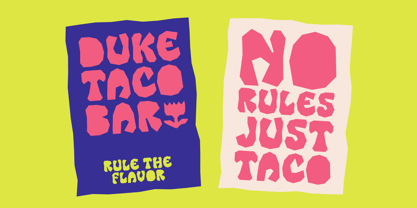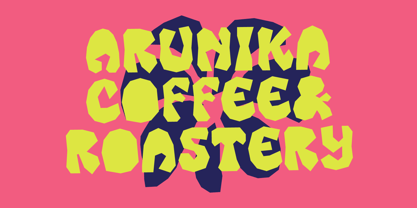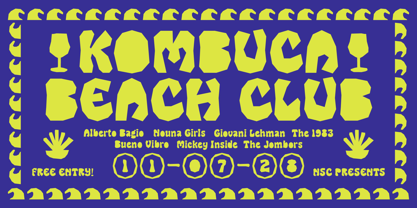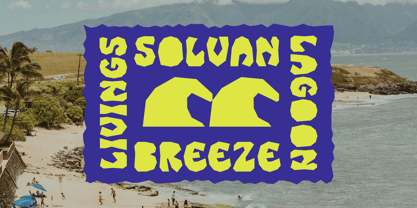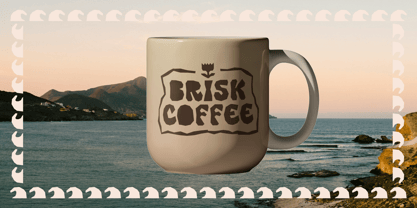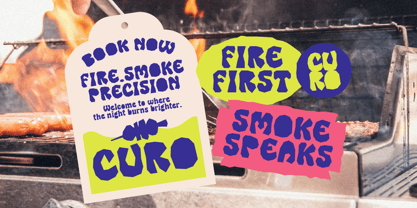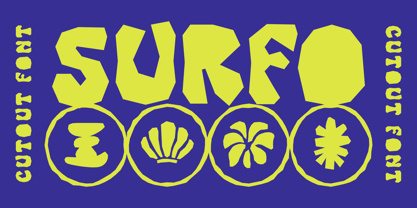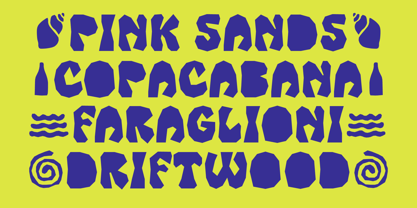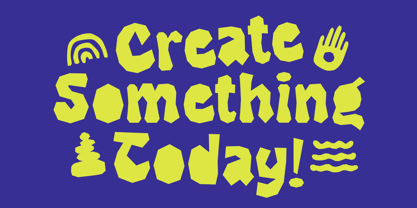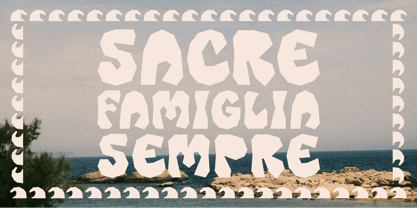
The Surfo Font Family was designed by Bagas Ferdiansah, Septianto Nugroho and published by The Native Saint Club. Surfo contains 2 styles and family package options. More about this family
TNSC Surfo is a playful cutout display font inspired by vintage beach signage, handmade paper lettering, and tropical street graphics. With its chunky organic shapes, imperfect cuts, and handcrafted feel, this typeface brings a bold and expressive personality to every design. The irregular letterforms create a raw, human touch that feels fun, nostalgic, and full of movement while still remaining highly readable for display use.
The font also includes a collection of tropical-inspired dingbat icons that pair naturally with the typeface, making it easy to build playful layouts and eye-catching compositions.
Great for posters, café branding, packaging, album covers, merchandise, social media graphics, beach club visuals, stickers, and creative headlines.